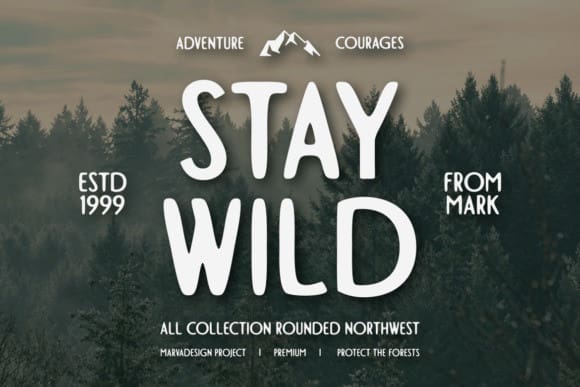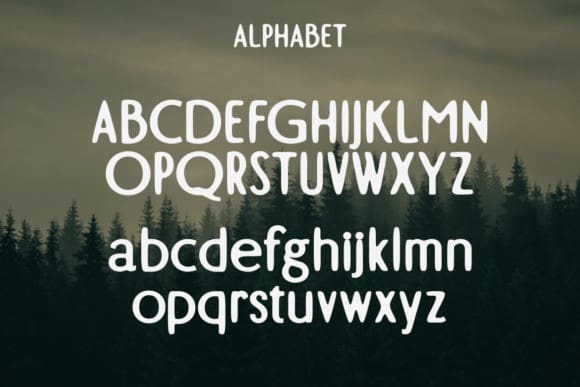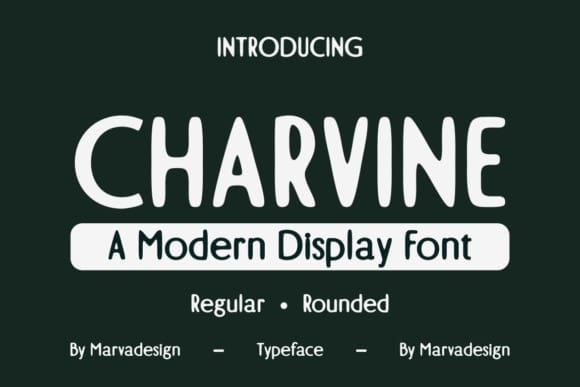
Charvine Display Font
Charvine Display Font is an incredibly cool and unique display font. It has a modern yet whimsical style and it will undoubtedly immerse your designs into a magical world.